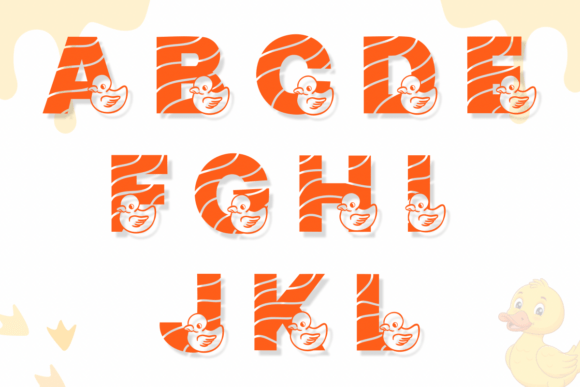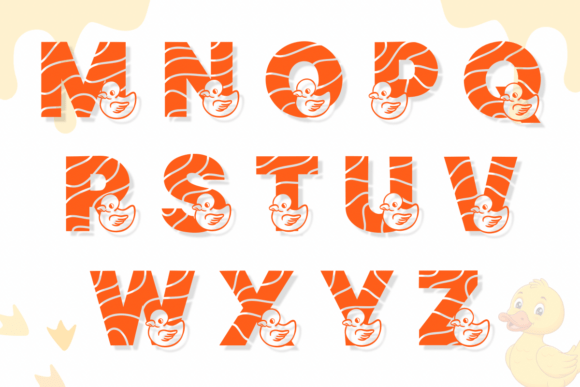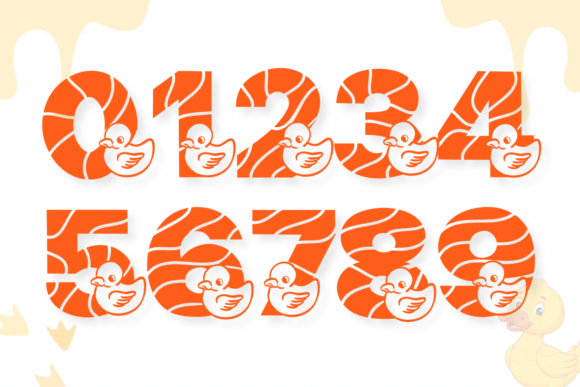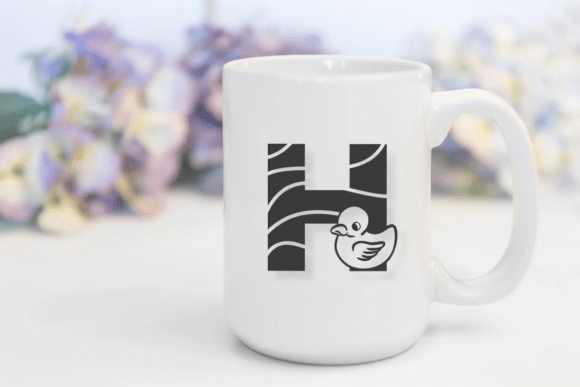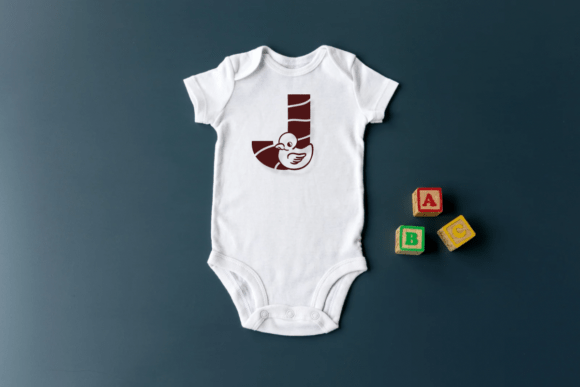
Duck Summer Font – Free Download
Introduction to Duck Summer Font
Duck Summer is a quirky decorative font featuring rubber ducky patterns within bold letterforms.
It’s a perfect fit for summer-themed designs, kids’ parties, swimwear branding, and playful products .
Key Features of Duck Summer Font